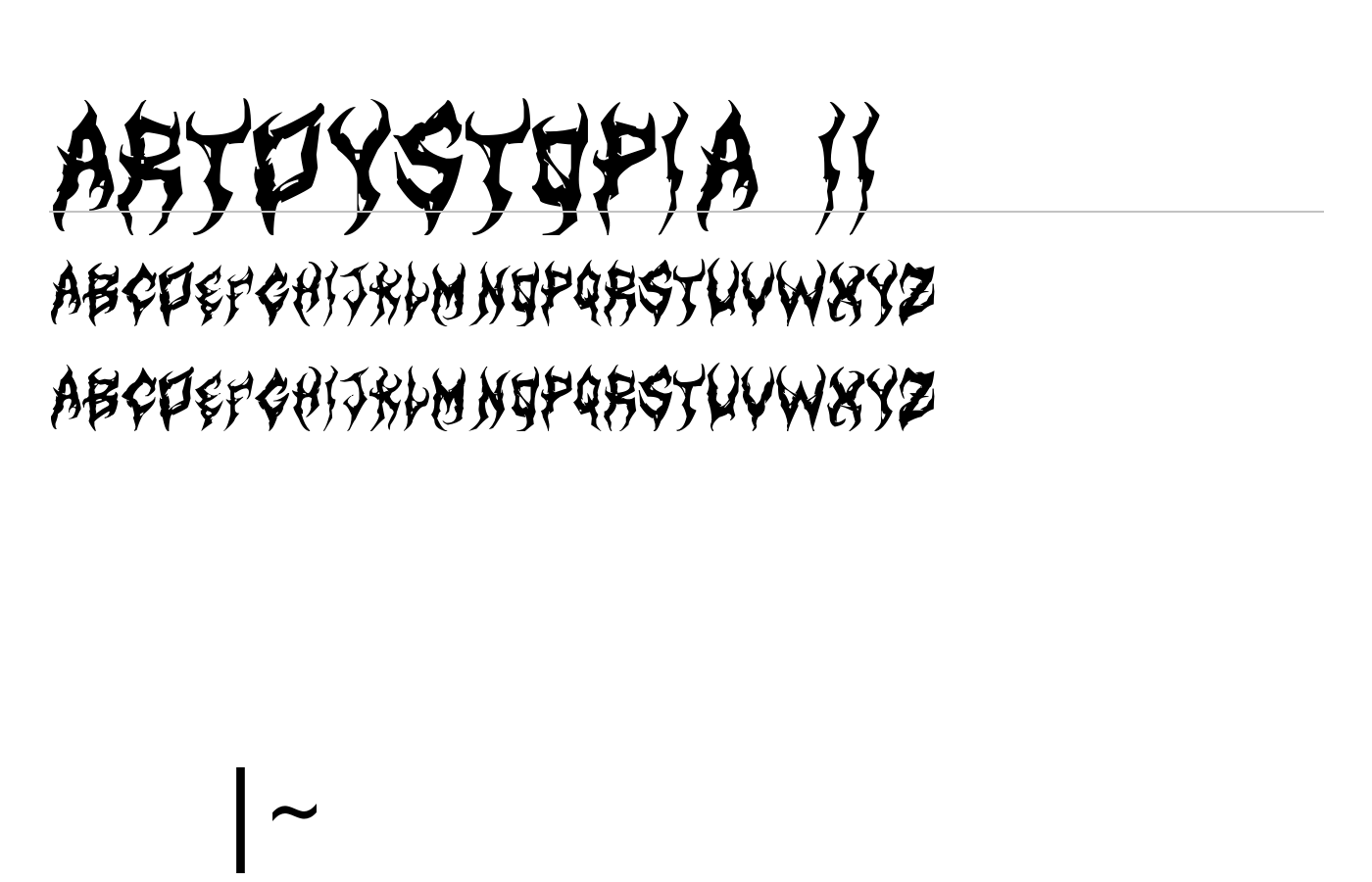
ArtDystopia II is a bold, decorative display font with a sharp, jagged design that evokes a rebellious, edgy vibe. Its irregular, flame-like shapes and condensed letterforms make it perfect for striking headlines, logos, or artwork that needs a strong, alternative aesthetic. Best suited for creative projects in music, gaming, or urban culture, it adds a powerful, dramatic impact wherever used.
ArtDystopia II Font
About ArtDystopia II Font